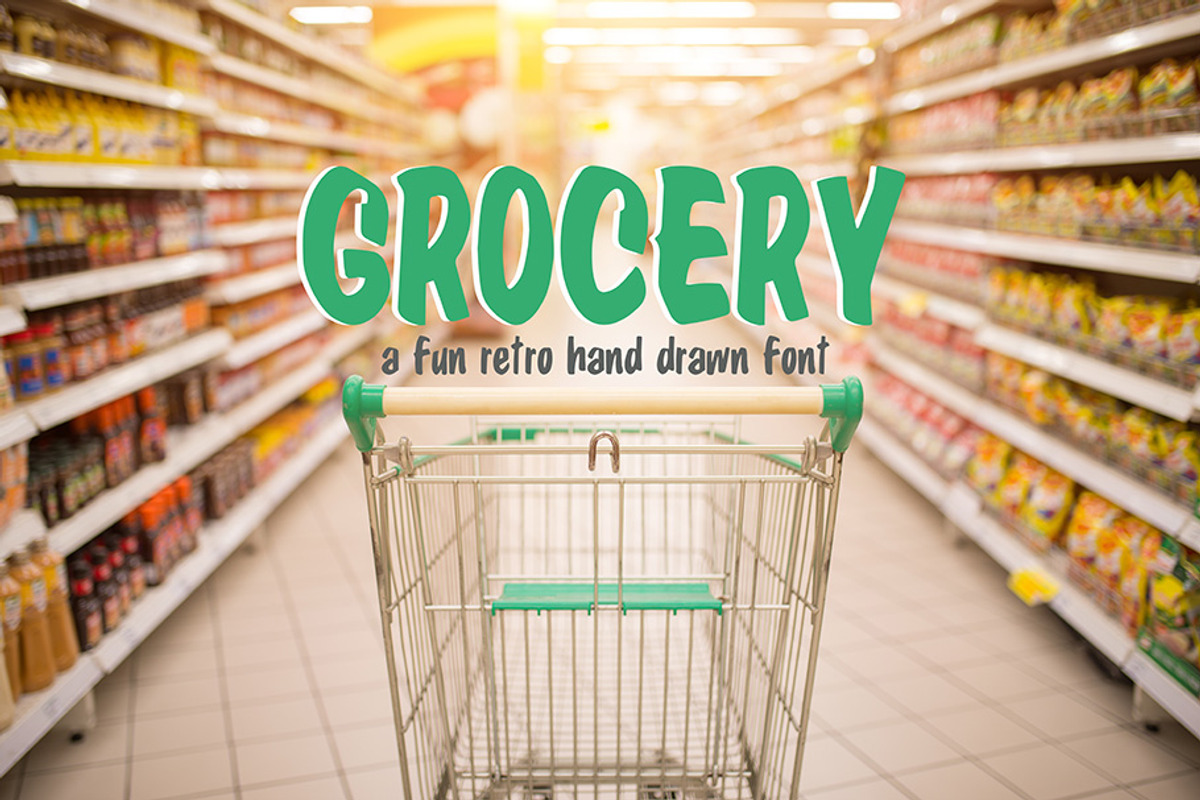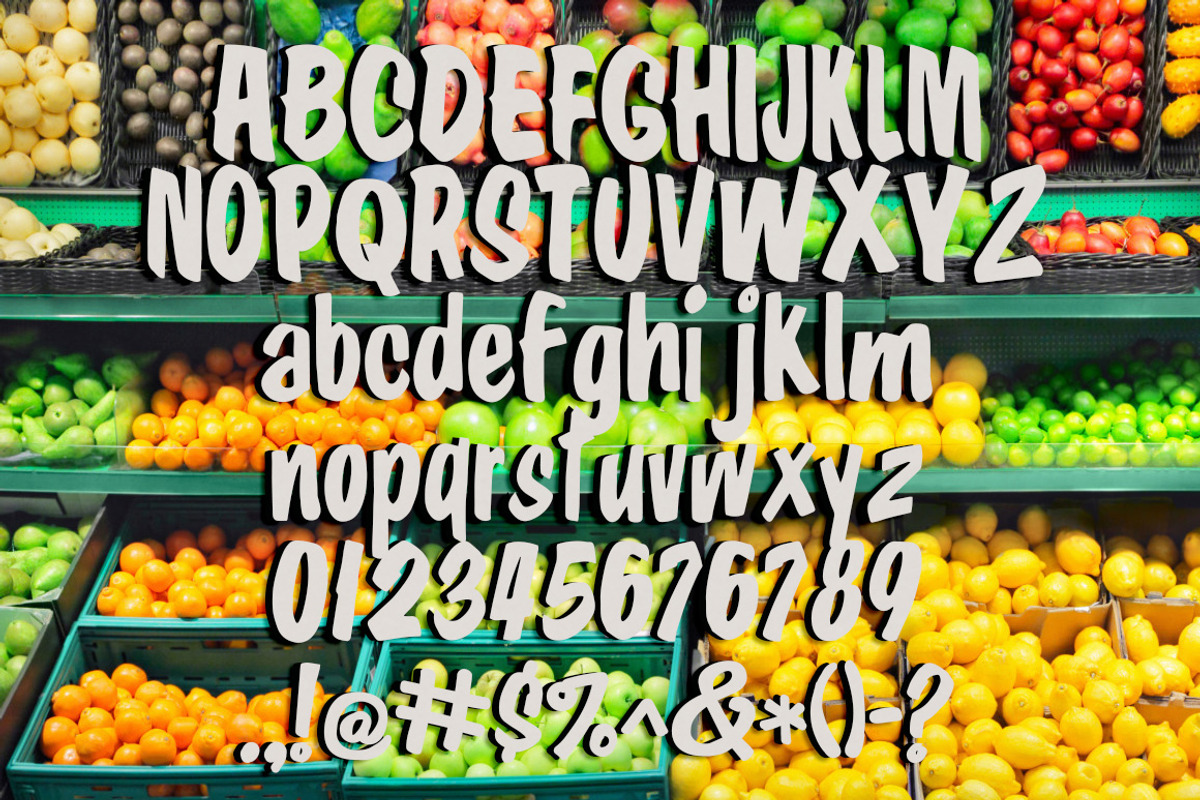
Grocery Hand Drawn Font
a retro hand drawn open type desktop font for personal or commercial use.
- contains uppercase and lowercase letters and punctuation.
Grocery Hand Drawn Font by Polka Dot Pixels fits naturally into Branding, posters, packaging, typography.